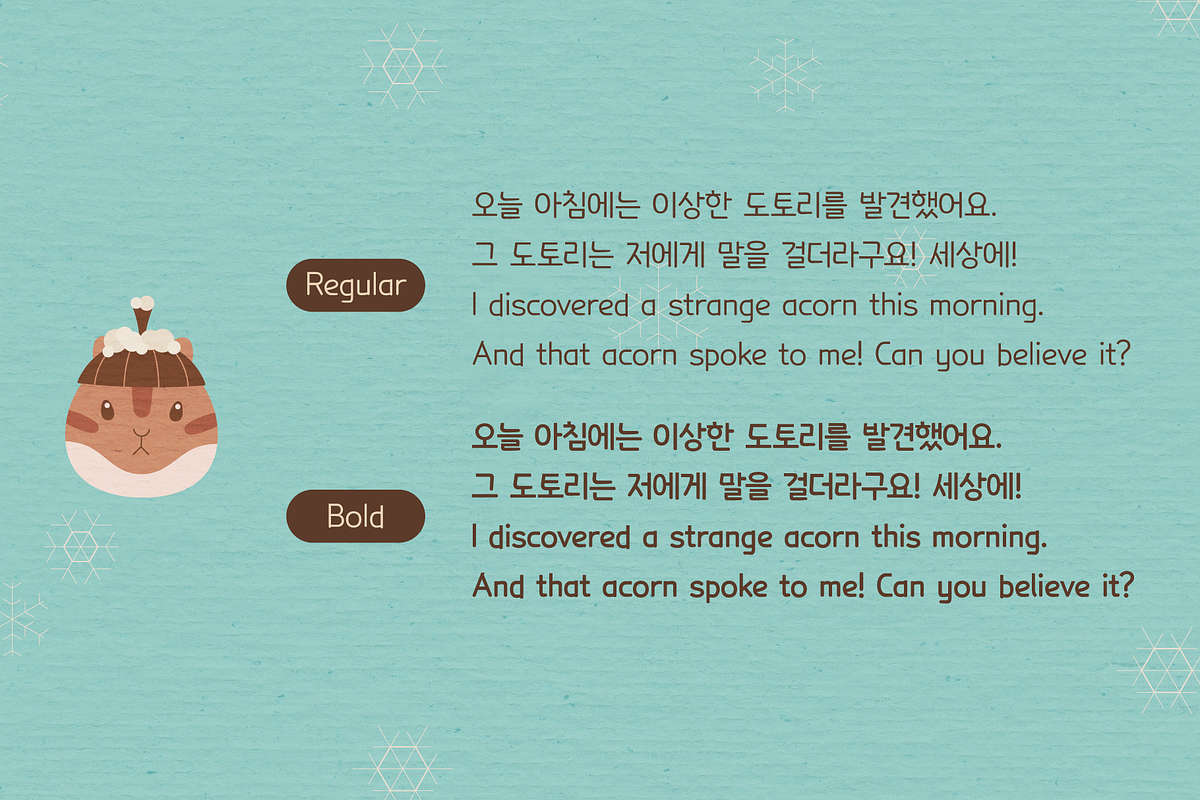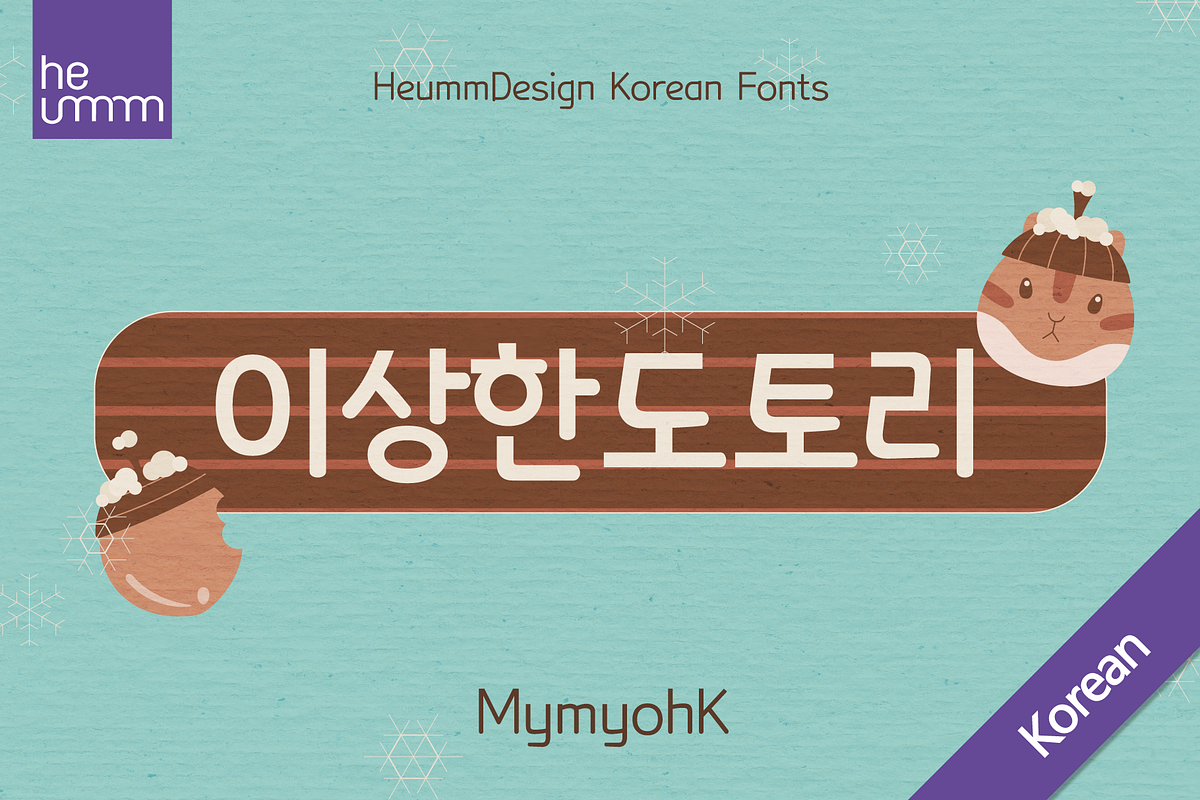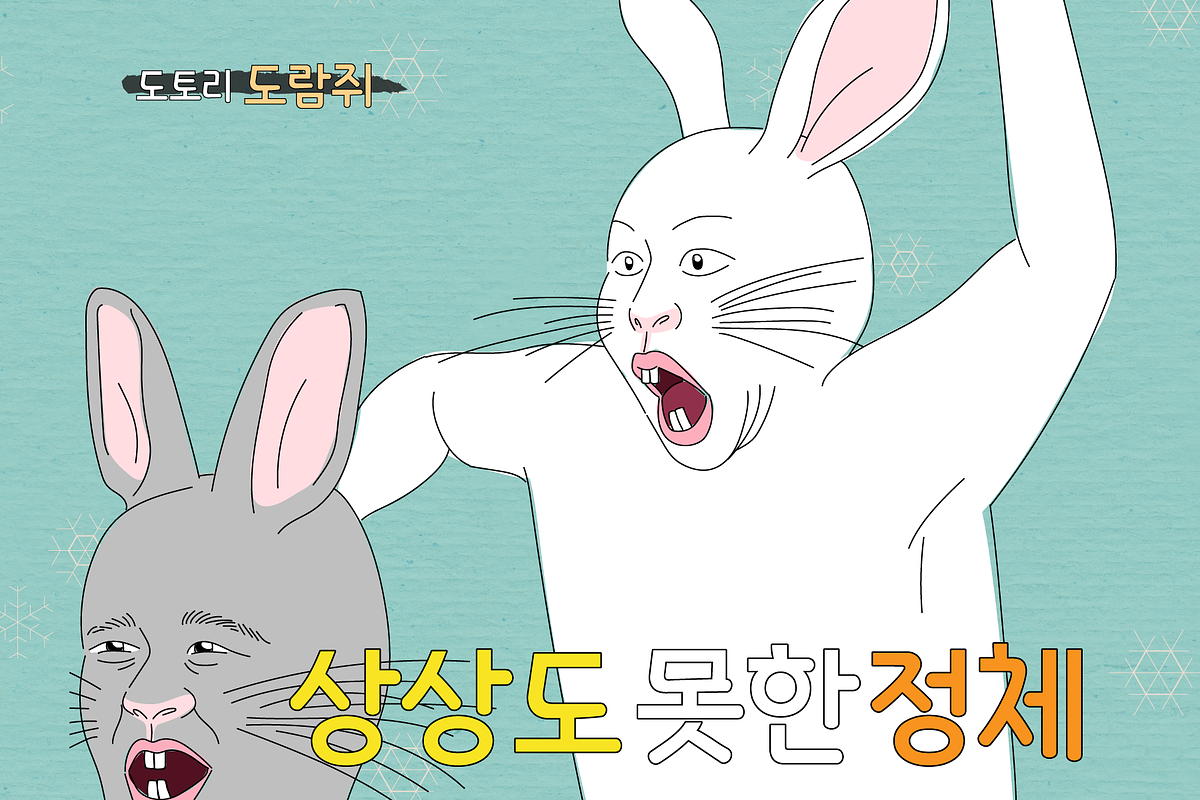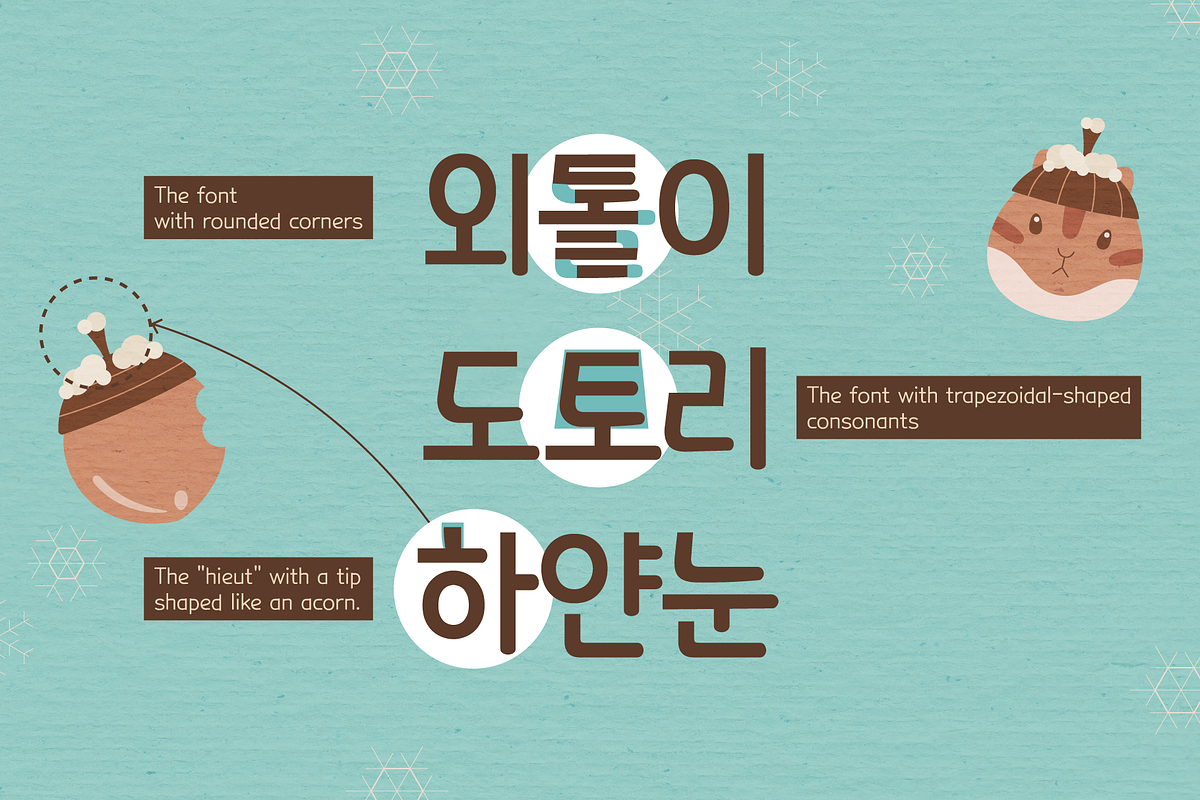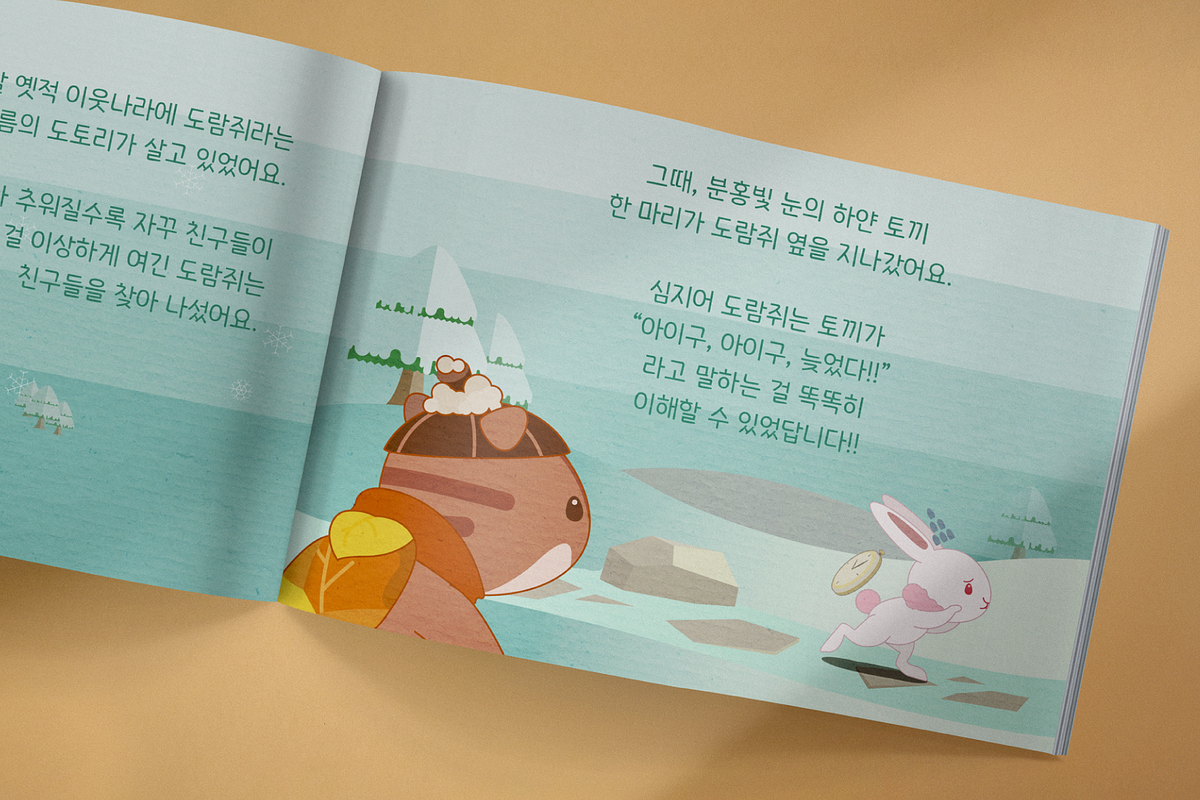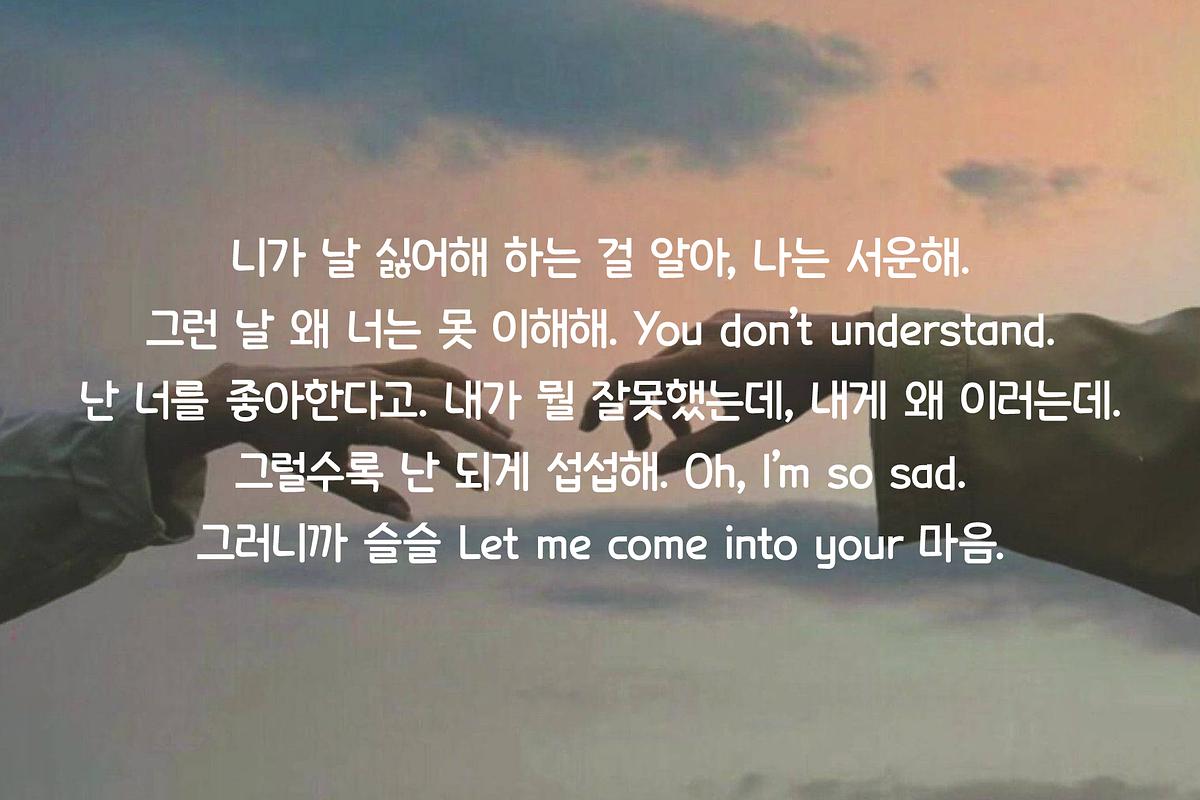
HU Mymyoh KR is a cute handwritten typeface that can be used to express any lively or active moment.
The alphabets are not aligned or evenly written but are crooked like scribble, which gives you funny and informal vibe.
HU Mymyoh KR is contains KOREAN words and Latin alphabets. HU Mymyoh KR adds a gothic feel to the Gulim-based typeface. The grapheme 'ㅎ' and 'ㅊ' are shaped into an acorn shape, and the shape of the grapheme is made in a large trapezoidal shape, so it is a typeface that feels both individuality and readability.
There are 2 weights of HU Mymyoh KR : Regular, Bold